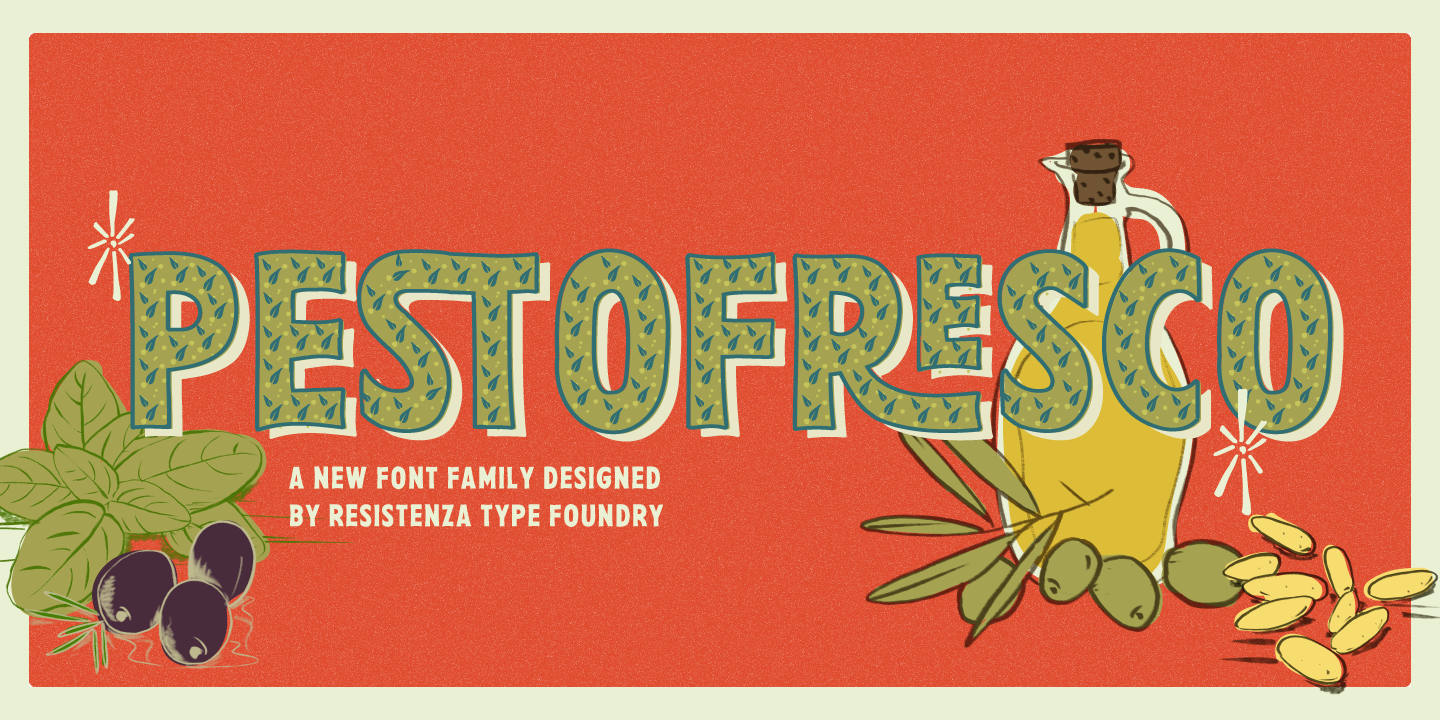
Pesto Fresco Font Free Download is a fresh, organic handwritten typeface that brings the flair of Italian kitchens, artisanal markets, and sun-drenched Mediterranean cafés to your designs. Please note that you must purchase this font for commercial use. It is available for free download for personal and testing purposes only.
You can use Pesto Fresco Font in restaurant menus, food packaging, organic product labels, cooking blogs, wedding invitations, farmhouse branding, café signage, and anything that craves a natural, handwritten, and gourmet feel. It’s perfect for designs that want to speak with flavor and friendliness.
What makes Pesto Fresco so exciting is its natural rhythm and hand-drawn texture — the letters look like they were written with love on parchment paper or chalkboard signage. It exudes warmth, authenticity, and a sense of craftsmanship that connects with viewers instantly.
The Pesto Fresco Font family includes variations such as Pesto Fresco Regular, Pesto Fresco Bold, and Pesto Fresco Italic, letting you dial up the personality depending on your creative recipe.
If you're designing something that should feel homegrown, flavorful, and filled with character, Pesto Fresco Font Free Download is the perfect choice. Download it today and give your typography a handmade, mouthwatering twist.